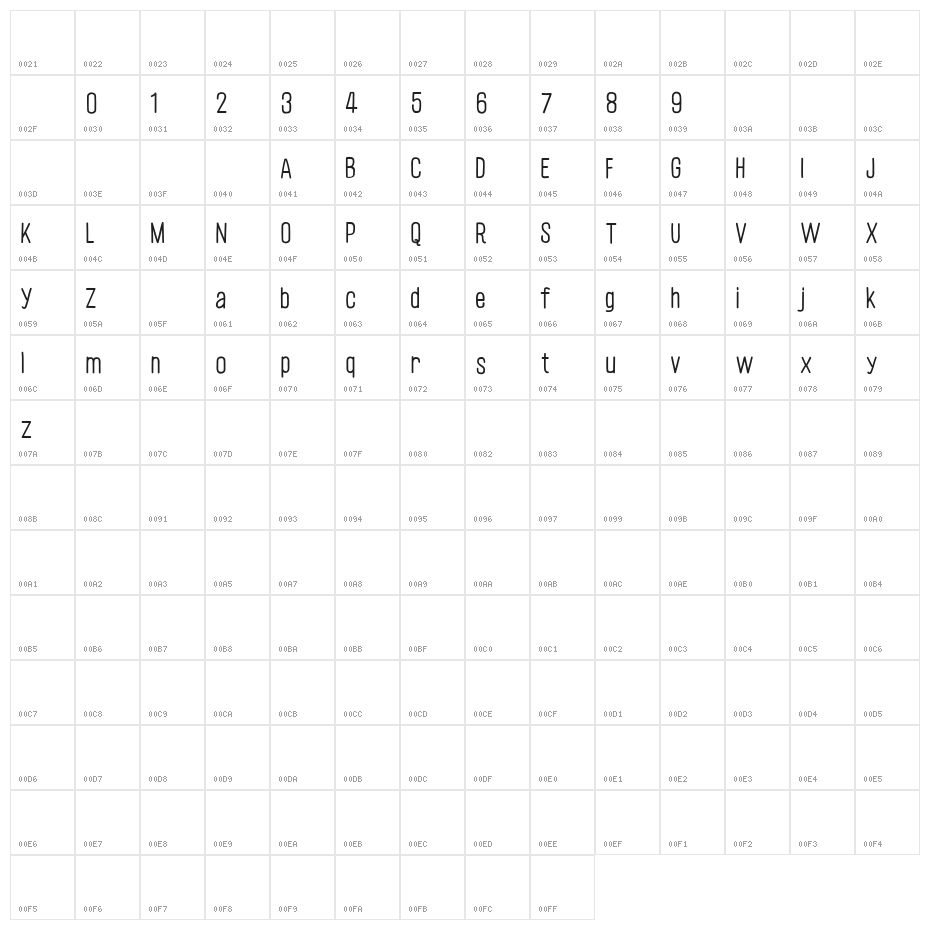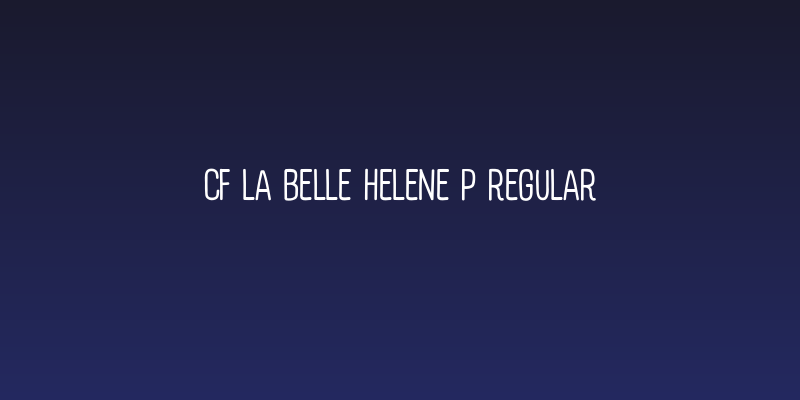
CF La belle Helene P Regular Font
CF La belle Helene P Regular Description
This font features a clean and modern sans-serif style with rounded edges, giving it a friendly and approachable look. The characters are evenly spaced, providing excellent readability. The uppercase letters are tall and slightly condensed, while the lowercase letters maintain a consistent height, creating a harmonious balance. The numerals are clear and distinct, making them easy to read. This font's simplicity and clarity make it versatile for various design applications.
| Proposed Projects | Ideal for branding, web design, advertising, and editorial projects where a modern and approachable look is desired. |